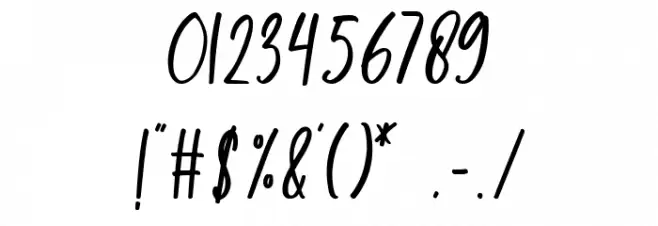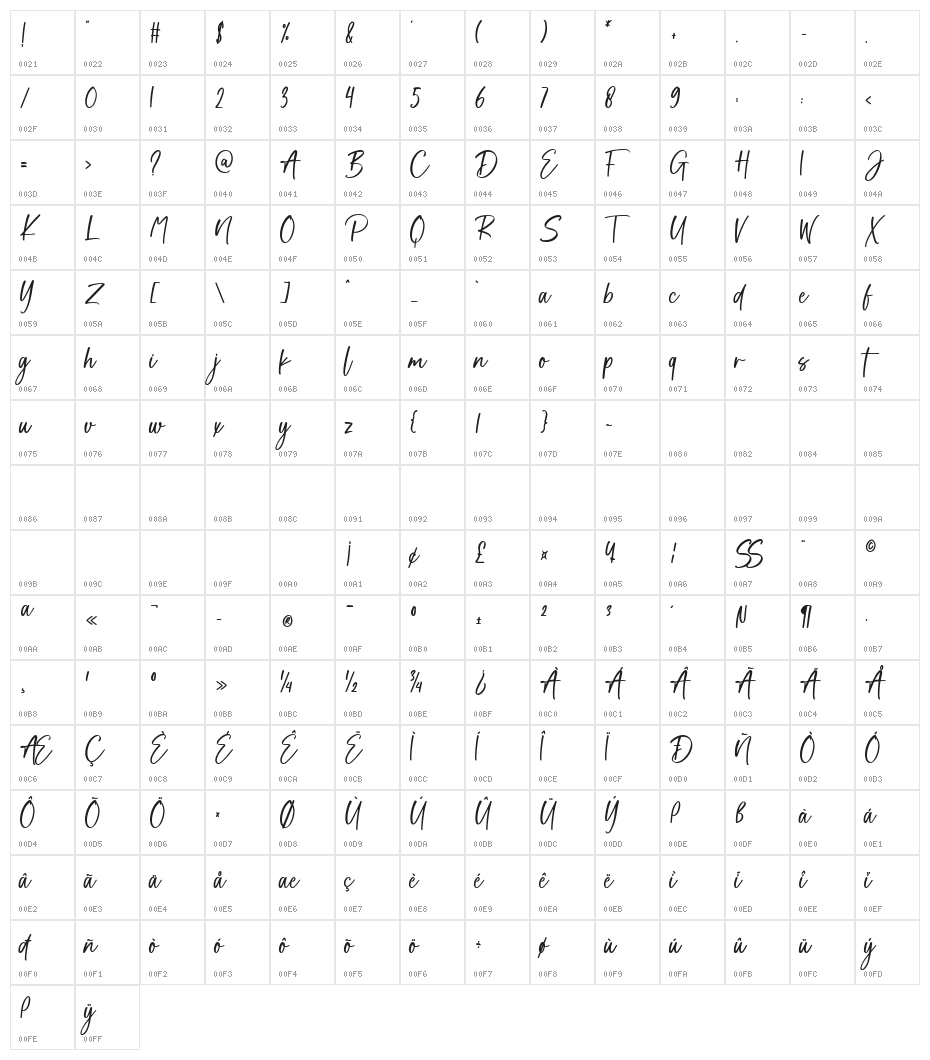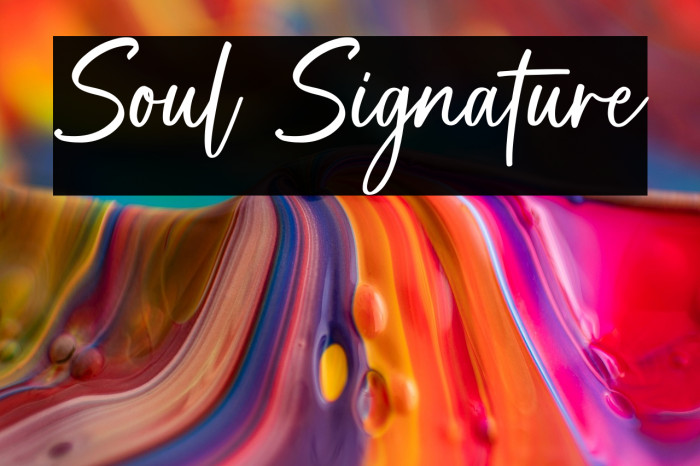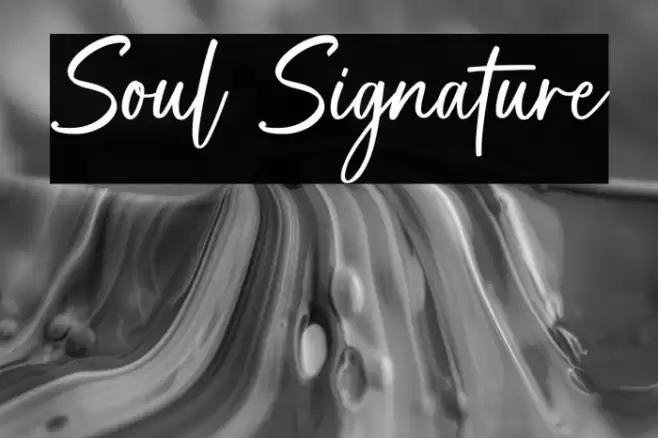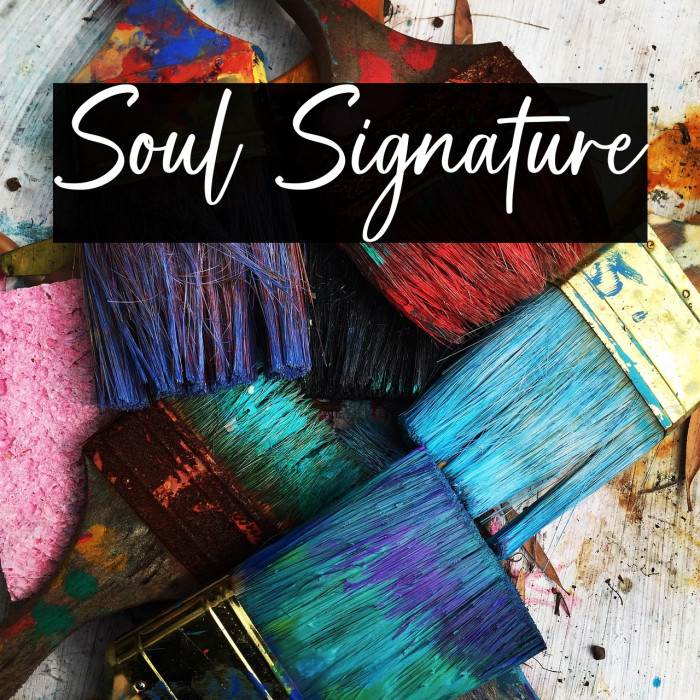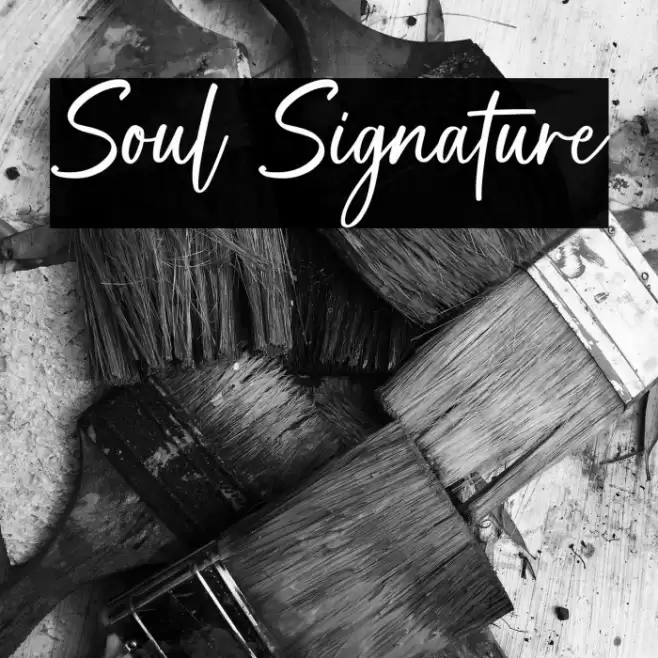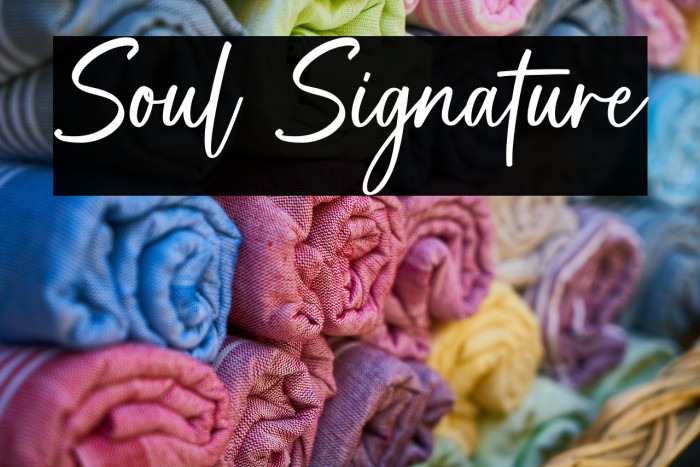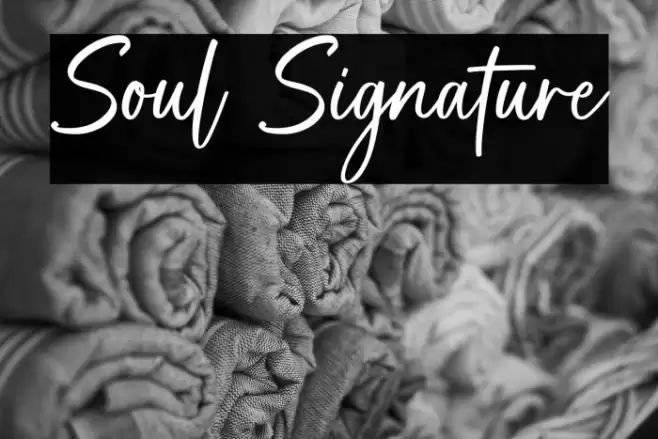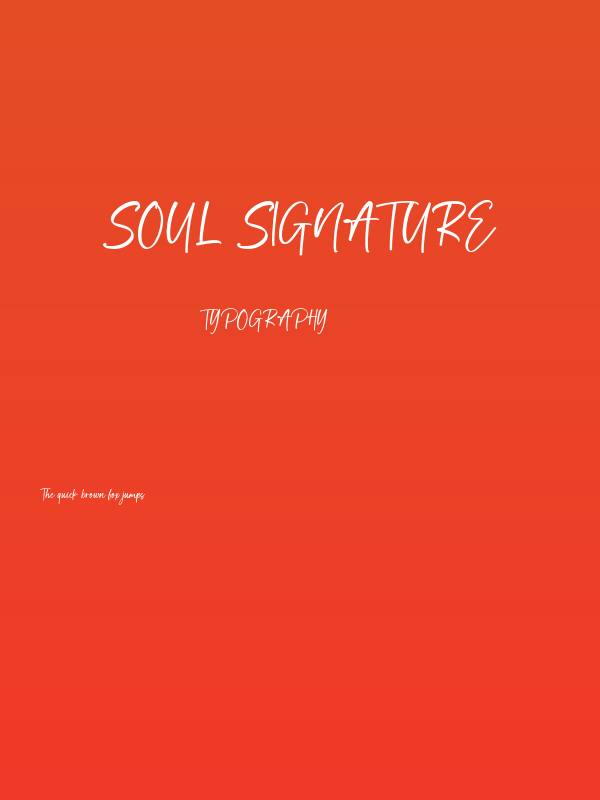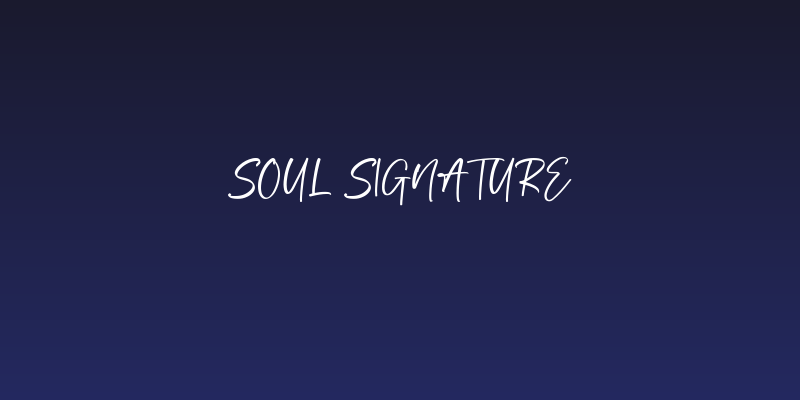
Soul Signature Font
Soul Signature Description
This font exudes a dynamic and expressive handwritten style, characterized by fluid and slightly irregular strokes that mimic natural handwriting. The uppercase letters are bold and slightly slanted, giving a sense of movement and energy. The lowercase letters maintain a consistent flow, with some letters featuring unique loops and curves that add personality. The numerals are clear and legible, while the special characters integrate seamlessly with the overall style. This font's organic feel makes it ideal for projects that require a personal touch.
| Proposed Projects | Ideal for personal branding, invitations, greeting cards, and creative projects that require a personal touch. |